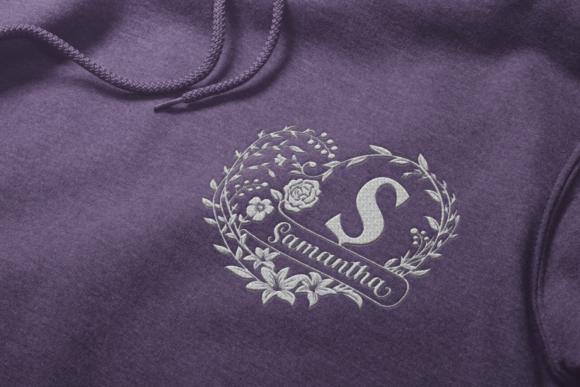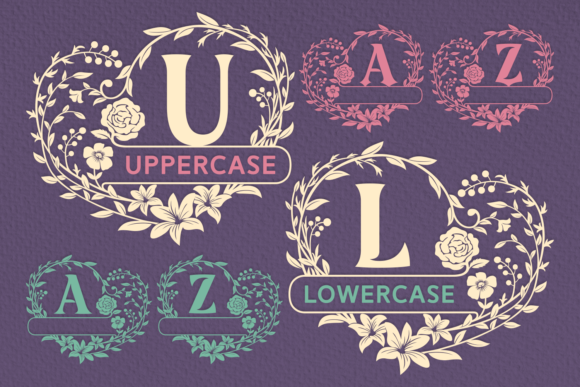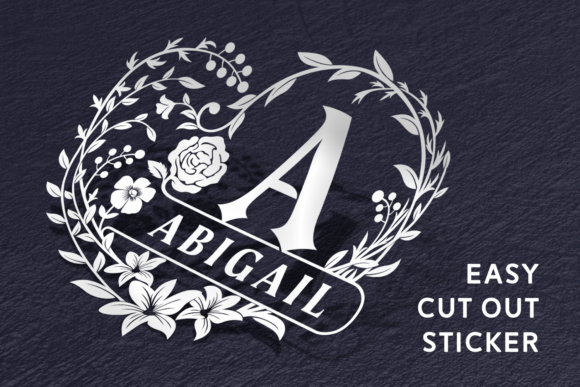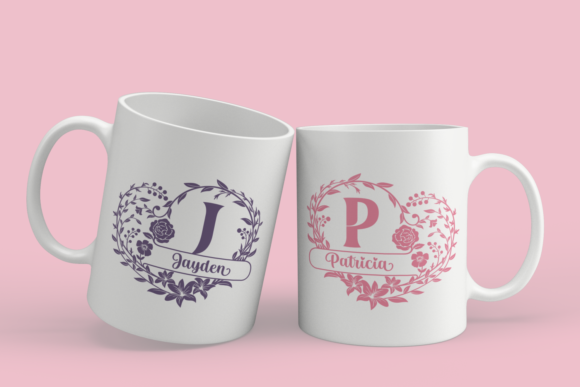
Introduction to Manishe Font
Manishe is a delicate and very detailed designed decorative font.
Fall for its ravishing style and use it to create gorgeous wedding invitations, beautiful stationary art, eye-catching social media posts, and much more .
Key Features of Manishe Font
Why Choose Manishe Font?
Manishe Font offers exceptional quality and versatility, making it a valuable addition to your design toolkit. Whether you’re creating for personal projects or commercial use, Manishe Font delivers professional results.